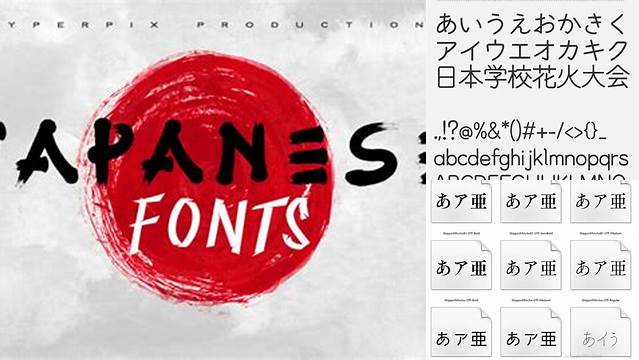
Free Japanese Fonts: Your Ultimate Guide
Exploring the World of Free Japanese Fonts: Your Ultimate Guide
Hey guys! Ever found yourself needing some awesome free Japanese fonts for a project? Maybe you're designing a website, creating some cool graphics, or even just trying to add a unique flair to your documents. Well, you're in luck! Finding the perfect font can be a real game-changer, and the world of free Japanese fonts offers a ton of creative possibilities. Let's dive into the ins and outs of finding, using, and making the most of these fantastic resources. We'll explore the different styles, where to find them, and how to avoid any potential pitfalls along the way. Ready to unlock a treasure trove of Japanese typography?
Why Choose Free Japanese Fonts?
Okay, first things first: Why bother with free Japanese fonts? There are several compelling reasons why these fonts are an excellent choice for your projects. First off, the cost is a major win! Who doesn't love free stuff? Accessing quality fonts without spending a dime is a huge advantage, especially for personal projects, students, or anyone on a tight budget. You can experiment with various styles and find the perfect fit without any financial commitment. Then, think about the cultural impact. Japanese fonts bring a unique aesthetic to the table. They can evoke a sense of tradition, modernity, or even a playful vibe, depending on the style. Using these fonts instantly adds a layer of cultural richness and visual interest to your designs. Imagine the impact of a sleek, modern gothic font for a tech blog post about Japanese innovation or a charming, handwritten font for a personal invitation. The possibilities are endless! Furthermore, using free Japanese fonts can significantly enhance the visual appeal of your projects, allowing you to stand out from the crowd. Whether you're creating a website, designing marketing materials, or working on a creative project, the right font can make all the difference. Japanese fonts offer a diverse range of styles, from elegant calligraphy to bold, modern designs. This variety allows you to match the font to your project's specific needs and target audience. Lastly, using free Japanese fonts is a fantastic way to expand your design skills and explore new creative avenues. Experimenting with different fonts and styles helps you develop a better understanding of typography and how it impacts visual communication. It's a fun way to learn and grow as a designer!
Types of Japanese Fonts to Consider
Alright, let's get to the fun part: the fonts themselves! Japanese fonts come in various styles, each with its unique character and purpose. Knowing the different types will help you choose the right one for your needs. First up, we have the Mincho fonts. Think of these as the classic serif fonts of the Japanese world. They're known for their elegant, traditional look, with serifs that add a touch of formality. These fonts are great for body text, especially in formal documents or projects that aim for a sense of sophistication. Then we have the Gothic fonts. These are the sans-serif counterparts, characterized by their clean lines and modern appearance. Gothic fonts are versatile and suitable for a wide range of applications, from headlines to body text. They’re often used in websites, advertising, and other contemporary designs. Next, we have Kaku Gothic fonts, a variation of Gothic fonts that are often used for titles and headings. These fonts are designed with emphasis on the design of characters, giving them a strong, modern look. They're great for grabbing attention. Next, there are the Maru Gothic fonts. Imagine a Gothic font, but with rounded terminals and a softer feel. These fonts have a friendly, approachable vibe, making them perfect for more casual projects, children's materials, or designs that aim for a touch of warmth. And of course, we can't forget the handwritten fonts. These mimic the style of calligraphy or handwritten notes, giving your designs a personal, artistic touch. Handwritten fonts are perfect for invitations, logos, or projects that require a human, creative feel. Finally, we have display fonts. These fonts are designed to stand out and are used for titles, headlines, and short text segments. Display fonts can be bold, unique, and visually striking, perfect for creating a memorable impact. So, whether you're aiming for elegance, modernity, or a touch of creativity, there's a Japanese font out there to fit your needs!
Tips for Using Japanese Fonts Effectively
Okay, you've got your fonts, you know the rules, now let's talk about how to use these free Japanese fonts effectively to make your designs shine. First off, start with legibility. Choose fonts that are easy to read, especially for body text. Avoid overly stylized or complex fonts for large blocks of text, as this can make it difficult for readers to understand. Consider readability on different devices. Make sure the font looks good on various screen sizes and resolutions. Test your design on both desktop and mobile devices to ensure that the text remains clear and readable. Next, you need to understand the Japanese writing system. Be aware of the different character sets, such as Hiragana, Katakana, and Kanji. Make sure your chosen font supports all the characters you need. This is especially important if you're using Kanji, as some fonts may have limited support. Then, pay attention to kerning and spacing. Adjust the spacing between characters and lines to ensure that the text is visually appealing and easy to read. Poor kerning or spacing can make the text look cluttered and unprofessional. Don't be afraid to experiment with different sizes and weights. The best font for your design will depend on what you are trying to achieve. Combine the font with other design elements. Think about the overall visual composition of your design. Pair your Japanese font with other elements like images, colors, and layouts to create a cohesive and visually appealing design. Furthermore, consider the cultural context. Japanese fonts have unique stylistic characteristics that reflect Japanese culture and aesthetics. Use these fonts thoughtfully and make sure they fit the overall tone and message of your design. For example, a bold, modern font might be appropriate for a technology blog, while a more traditional calligraphy font might be better for a traditional restaurant. Finally, don't overdo it! It's tempting to use a lot of different fonts in a single design, but it's usually best to stick to a limited number of fonts to maintain consistency and visual harmony. Too many different fonts can make your design look cluttered and unprofessional. By following these tips, you can make the most of your free Japanese fonts and create designs that are both visually appealing and effective.
In conclusion, the world of free Japanese fonts is a fantastic resource for designers of all levels. From elegant Mincho fonts to bold Gothic styles, there's a font out there to suit any project. By understanding the different types of fonts, knowing where to find them, and being mindful of licensing and usage rights, you can unlock a world of creative possibilities. Remember to choose your fonts wisely, considering legibility, cultural context, and the overall design. With a little practice and experimentation, you can create stunning designs that capture the beauty and uniqueness of Japanese typography. So go ahead, explore the world of free Japanese fonts, and let your creativity soar!